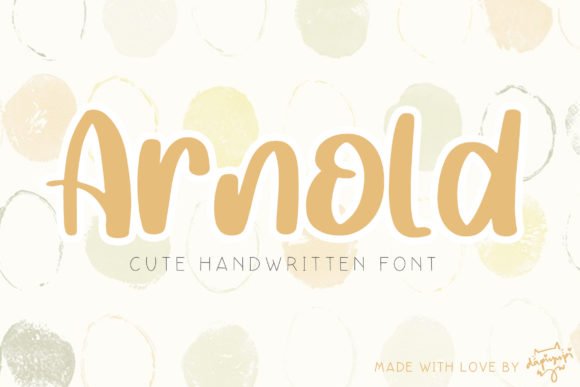
Discover the Whimsy of Arnold Font Have you ever stared at a blank sheet of paper, waiting for the perfect idea to strike? That’s exactly what happened to me the day I stumbled upon Arnold Font. The moment I saw its playful, handwritten curves, I knew I had to learn more. 📸 Preview Gallery 5…